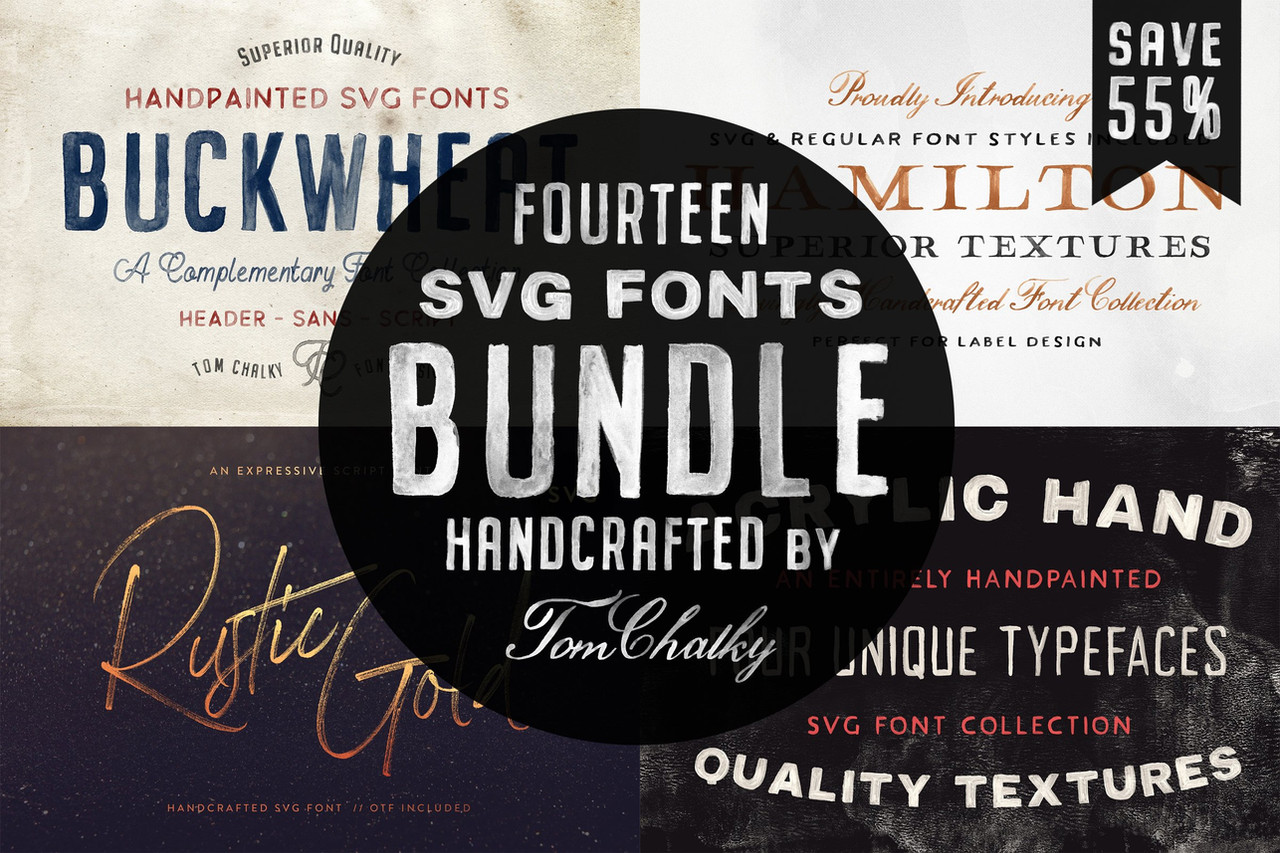
**Introducing The Handcrafted SVG Font Bundle:** A versatile and professional collection of high-quality Opentype SVG Fonts with stunningly realistic textures *(standard .otf fonts also included!)*. Ive bundled together 4 of my best selling SVG font packages with a generous 55% discount. Inside youll find 14 SVG fonts, 14 standard fonts, and a super useful selection of high-quality textures! **Buying these products individually would cost you $73**